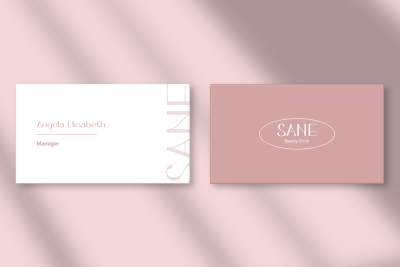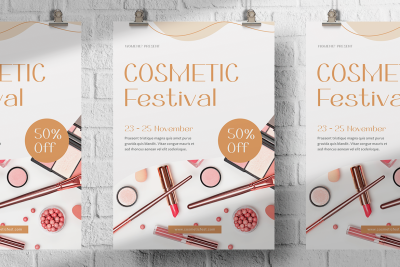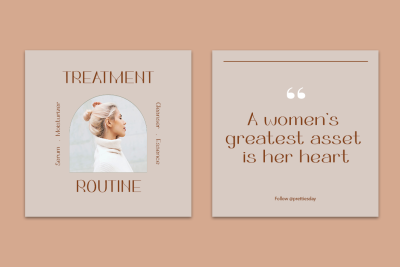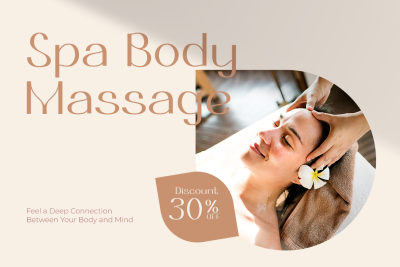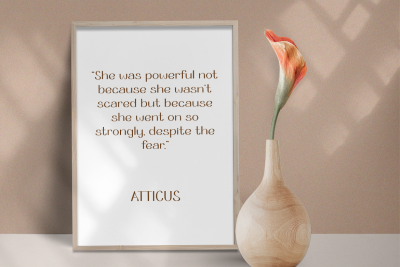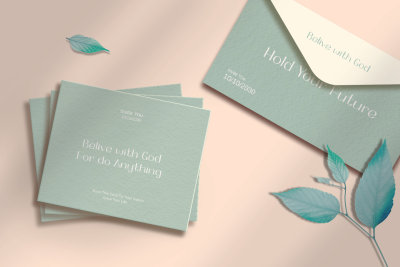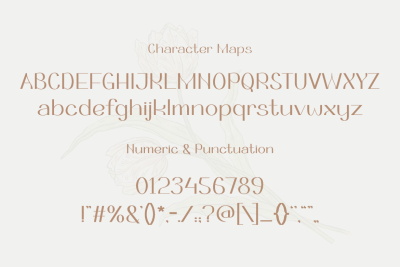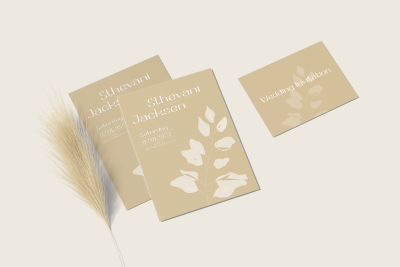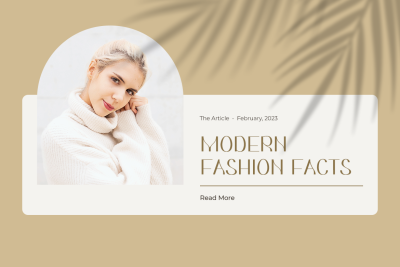
Instagram Font MIRABELLA is a stunning and sophisticated typeface that combines elegance with a contemporary twist. This modern font features sleek, minimalist strokes with subtle curves, creating a look that is both stylish and timeless. Perfectly suited for high-end branding and design, MIRABELLA is ideal for creating refined Instagram posts, chic logos, and captivating headlines. The fontโs balance of simplicity and flair ensures that it enhances your design without overwhelming it.
MIRABELLAโs unique characteristics lie in its clean lines and artistic letterforms. These features make every design appear polished and intentional. Whether youโre aiming to create a minimalist aesthetic or a more dynamic visual statement, Instagram Font MIRABELLA adapts seamlessly to various styles. Its lightweight and airy design evokes sophistication and modern luxury. This makes it an excellent choice for projects that demand elegance and creativity.
Furthermore, MIRABELLAโs high readability ensures it performs well in both digital and print mediums. From Instagram captions to business cards, this font elevates your designs while maintaining a professional and approachable feel. The subtle, graceful details of the typeface lend an extra layer of personality. This ensures your work stands out in a competitive design landscape.
Instagram Font MIRABELLA is perfect for creative professionals, influencers, and businesses seeking to convey sophistication and modernity. Lifestyle brands, fashion designers, and wellness companies will find MIRABELLA particularly fitting for their visual identity. The font exudes elegance and clarity, making it ideal for these industries. Additionally, itโs a go-to choice for wedding planners and event coordinators crafting stunning invitations, signage, or promotional materials.
For Instagram content creators, MIRABELLA is an excellent tool for curating cohesive and stylish feeds. Its versatility makes it ideal for designing story templates, highlight covers, and compelling posts that captivate your audience. Beauty brands, luxury boutiques, and interior design firms will also appreciate how this font enhances their brand image. MIRABELLA adds a touch of modern sophistication to every project.
MIRABELLA is not only for professionals but also for aspiring designers or small business owners looking to elevate their branding. Its approachable yet high-end vibe ensures it works across a variety of projects. These range from packaging and product labels to blogs and websites. With Instagram Font MIRABELLA, you can transform ordinary designs into extraordinary creations that leave a lasting impression.